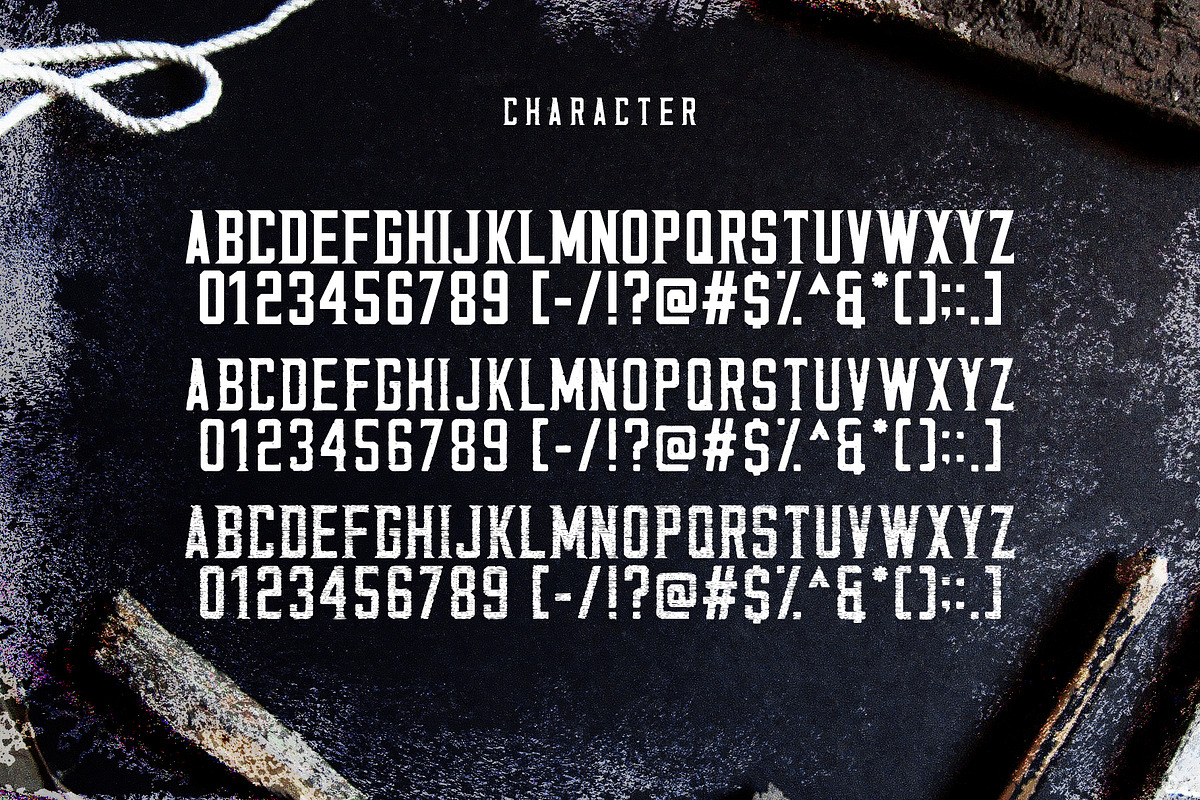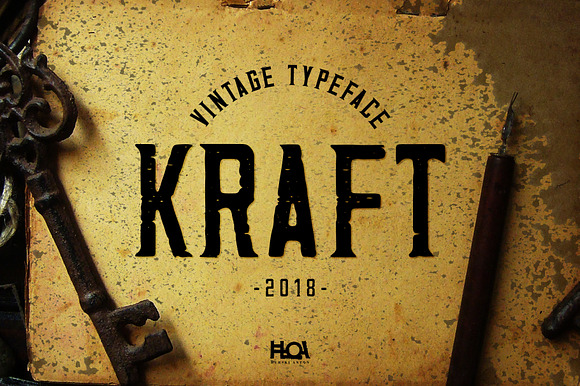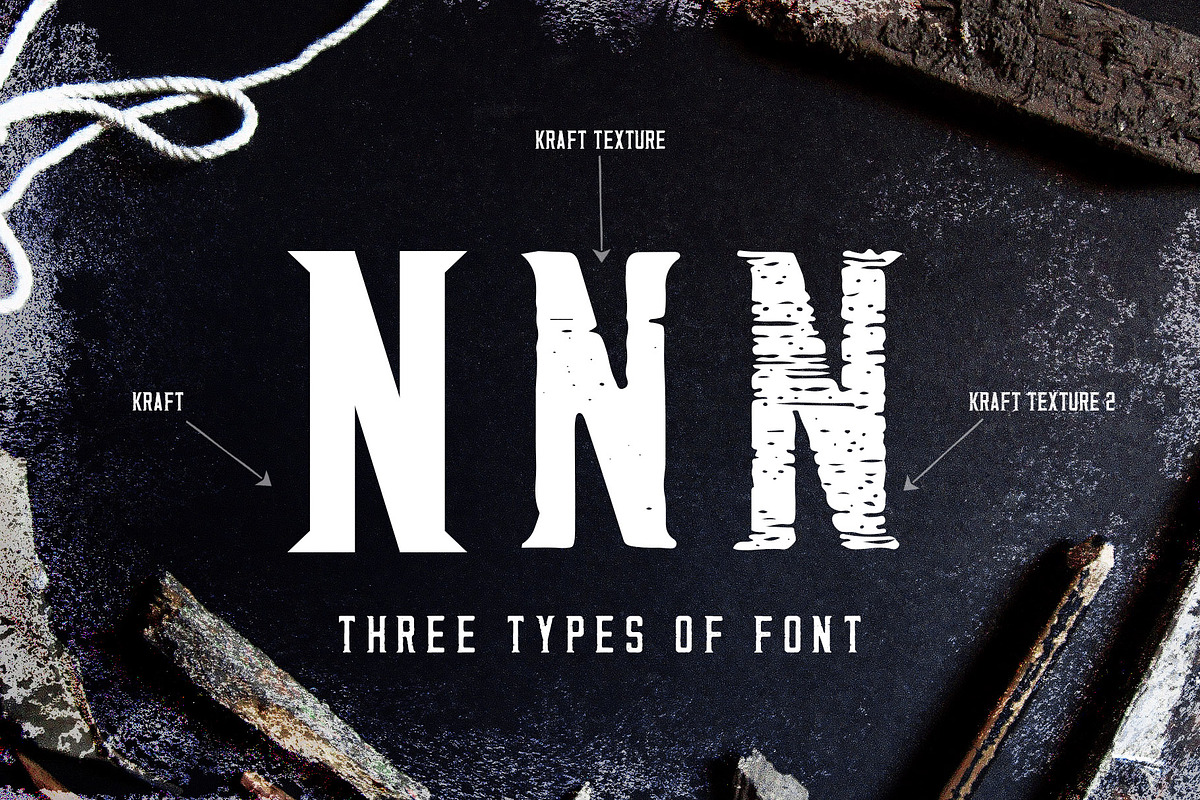
Kraft - Vintage Typeface
- Kraft Regular
- Kraft texture Regular
- Kraft texture 2 Regular
Why Kraft - Vintage Typeface is worth a look
Kraft - Vintage Typeface by Hurski Anton fits naturally into Branding, posters, packaging, typography.